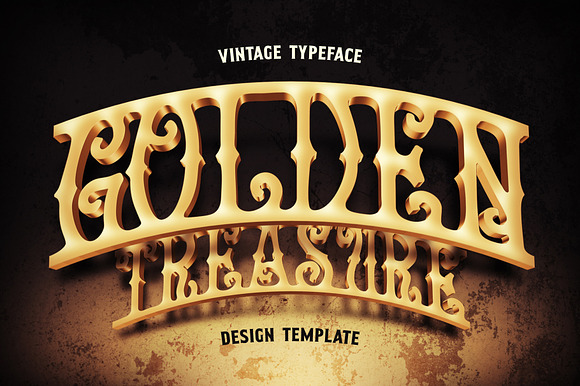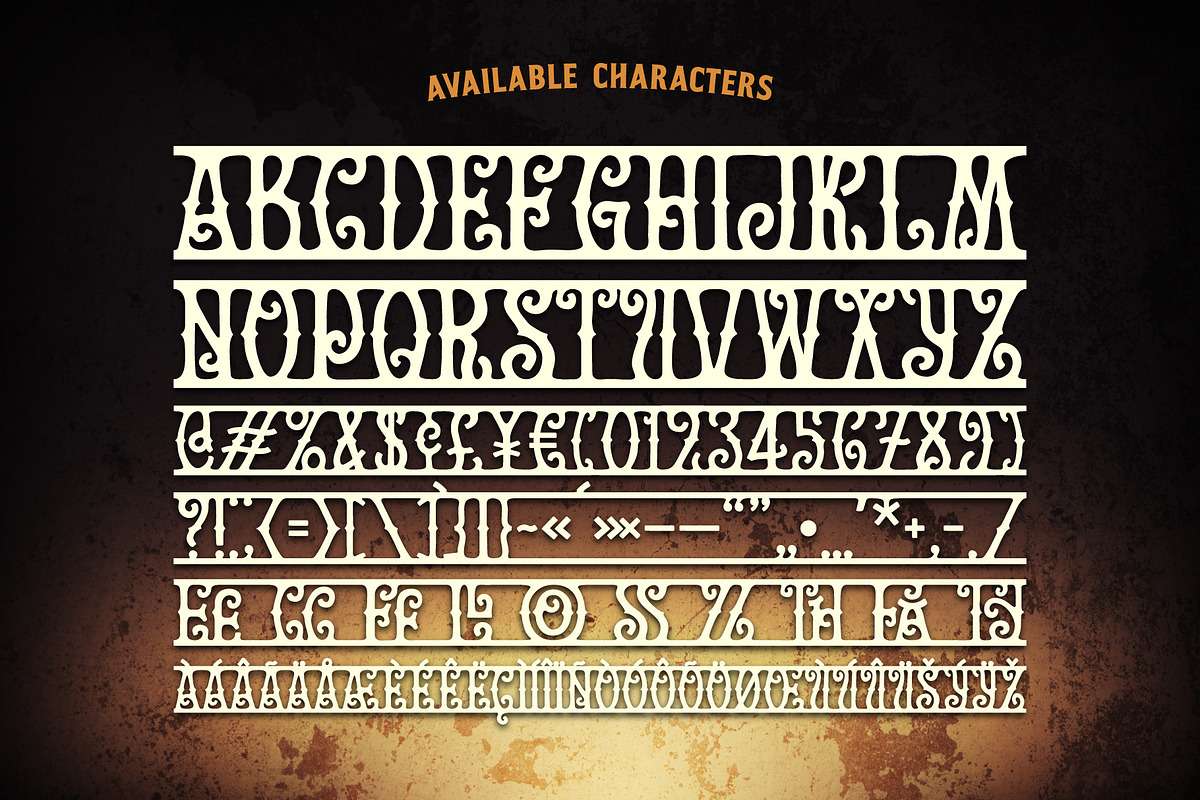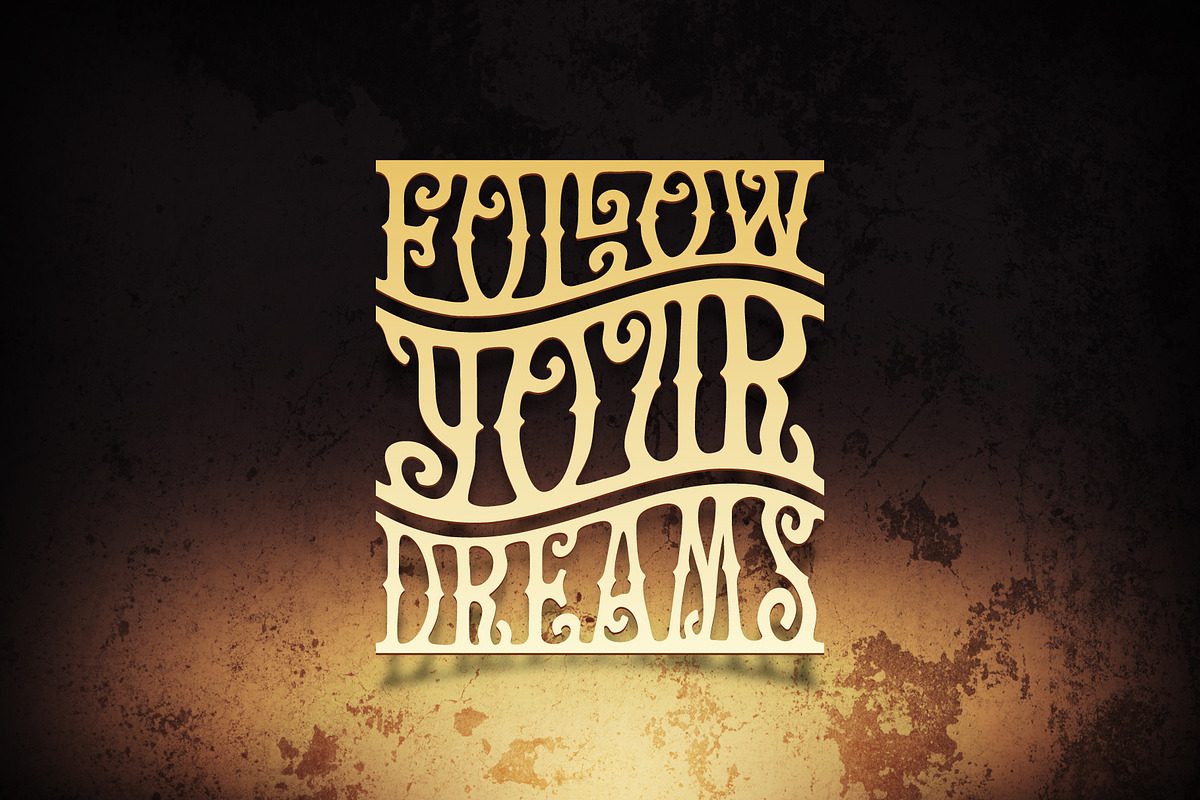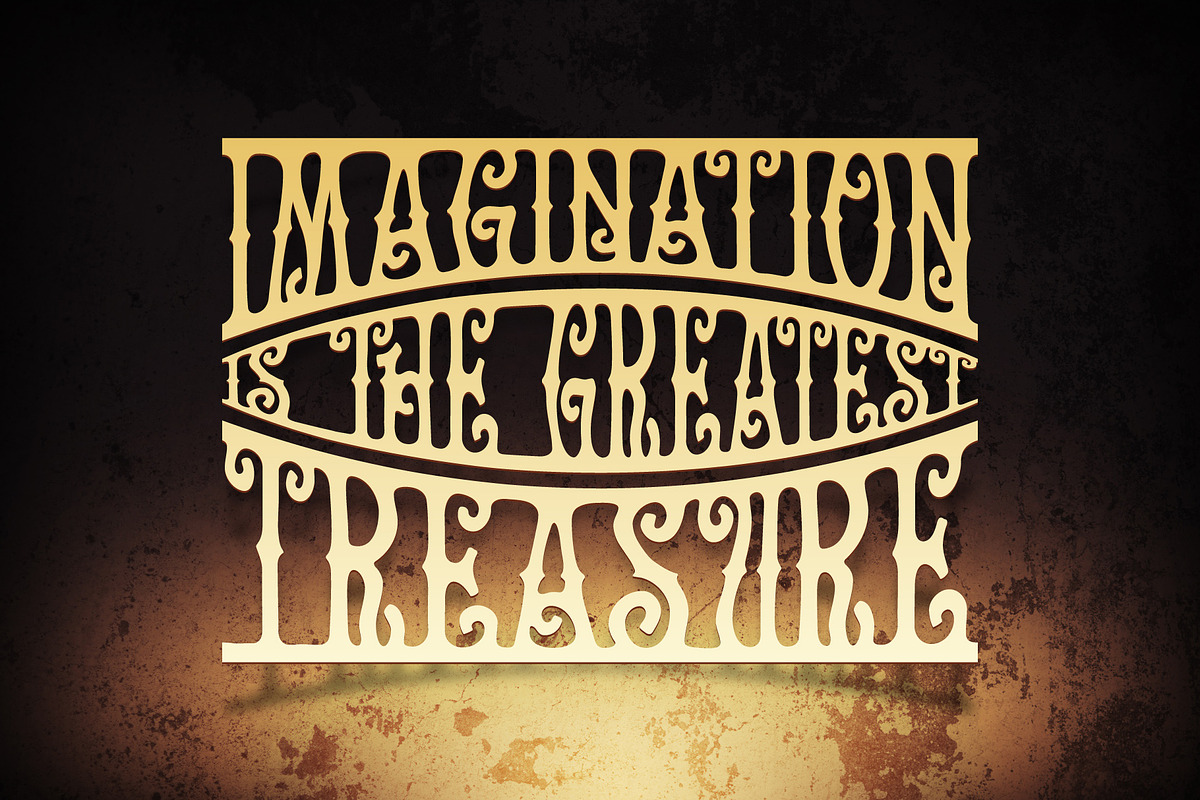
Golden Treasure font & template
Hello, introducing a vintage font named Golden Treasure. It's an original decorative typeface with seamless connected letters. Golden extruded effect is made in editable PSD high resolution template (6000 x 4000 px). Just in few clicks you can achieve a presented 3d effect (short text instruction is included). Also lettering quote posters (2nd & 5th screenshots) are available in vector EPS format.